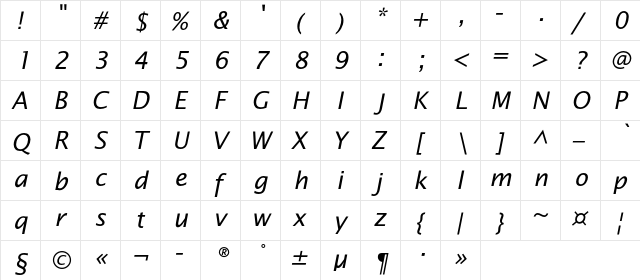
OfficeTypeSans Italic
Design Context for OfficeTypeSans Typeface
OfficeTypeSans takes a measured approach to typography — its balanced proportions and neutral character make it a reliable workhorse for both digital and print work. Its italic angle brings a sense of urgency and motion to the letterforms.
Pro Tip: Use OfficeTypeSans for emphasis, pull quotes, and subheadings where its slanted energy can add rhythm to the layout.